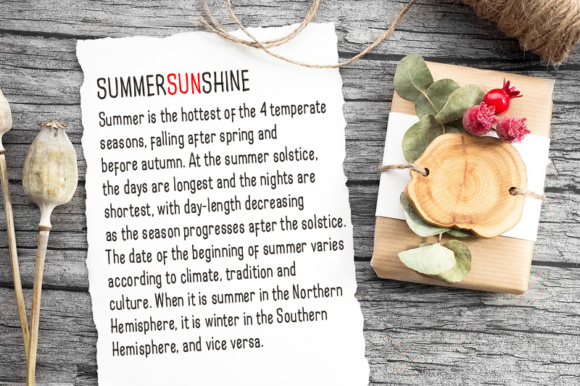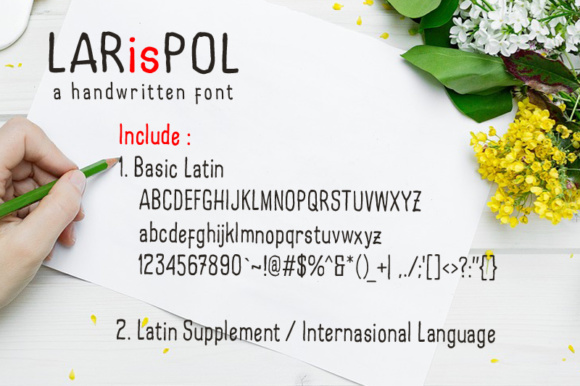
Introduction to Larispol Font
Larispol is a handwritten condensed font with a simple and beautiful look.
Key Features of Larispol Font
Why Choose Larispol Font?
Larispol Font offers exceptional quality and versatility, making it a valuable addition to your design toolkit. Whether you’re creating for personal projects or commercial use, Larispol Font delivers professional results.